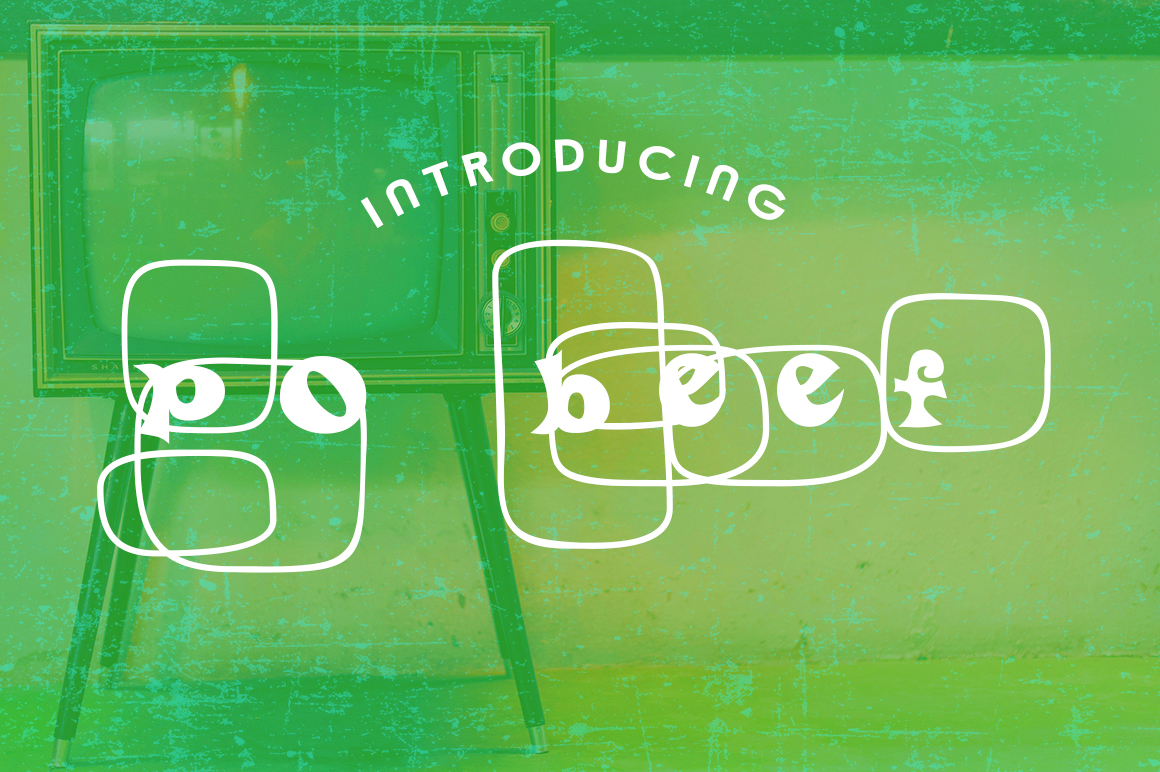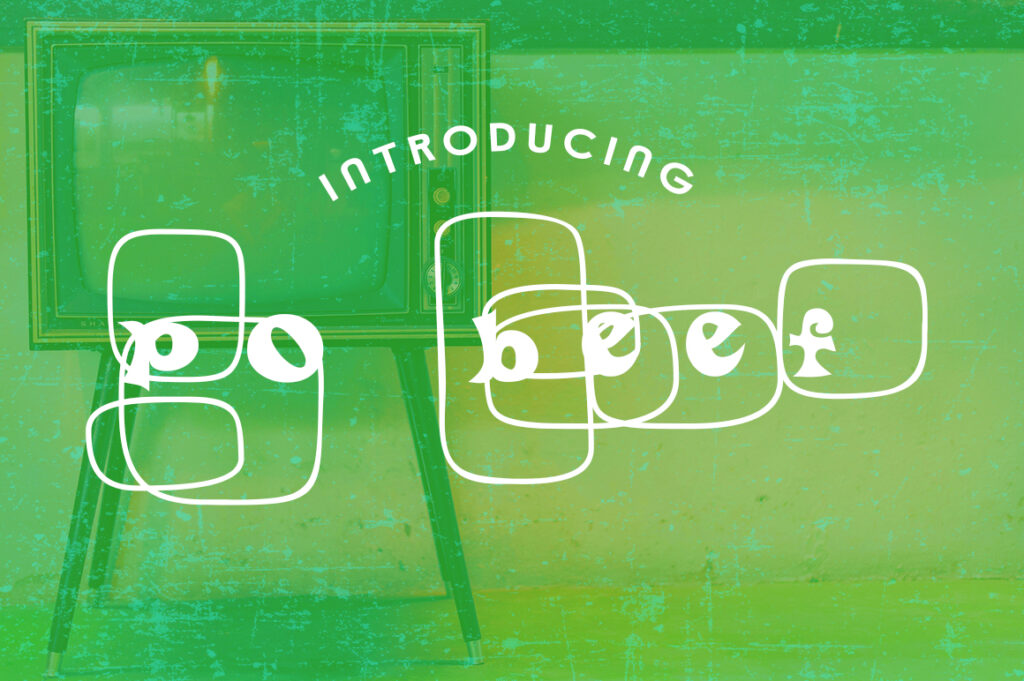
HomePersonal Use FreePo Beef Personal Use Free Po Beef FacebookXPinterestWhatsApp 1 of 1 About Po Beef Font Po Beef is an atom age ornamental font, ideal for retro designs with a twisted flair. This free decorative font is from Typodermic. DOWNLOAD ON CREATIVE FABRICAThis font is sold and delivered by Creative Fabrica. Font Canyon may earn a commission if you buy through this link. People also explored Monsoon Font Bregor Font Super Rocket Font Guidy Fi Font Sanford Region Font Simple Life Font Qatar Font Youngs Font Mattery Font 470 0 TagsPo BeefPo Beef Font Previous articleFrozdotreNext articleColourbars LEAVE A REPLY Cancel reply Comment: Please enter your comment! Name:* Please enter your name here Email:* You have entered an incorrect email address! Please enter your email address here Website: Save my name, email, and website in this browser for the next time I comment. Personal Use Free Hatchill Personal Use Free Read more about this font Retro Poster Personal Use Free Read more about this font Hommy You Personal Use Free Read more about this font BD Algebra Personal Use Free Read more about this font BLOG Transform Your Website: Elevate Your Typography with 7 Best Web Font Generators Are you ready to transform your website's typography from ordinary to extraordinary? Great! Today, we're diving into the world of web font generators, which... Free vs Paid Fonts: Why Investing in Premium Fonts Is Worth It Best Fonts for T-Shirt Design – Top 2025 Picks Top 7 Google Fonts Alternatives for Faster and Privacy-Friendly Web Design (2025)